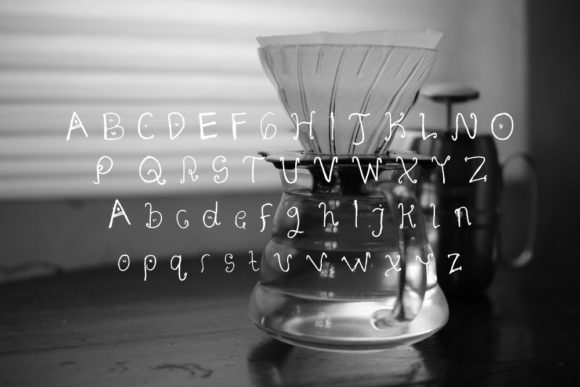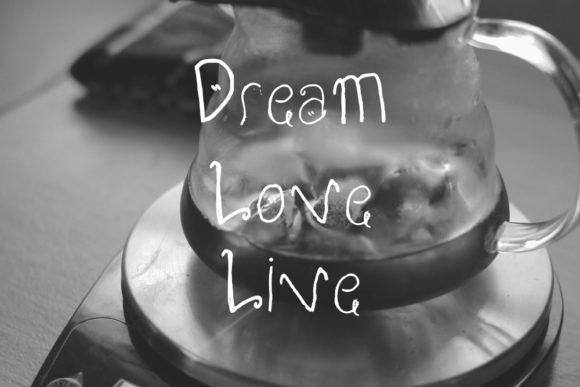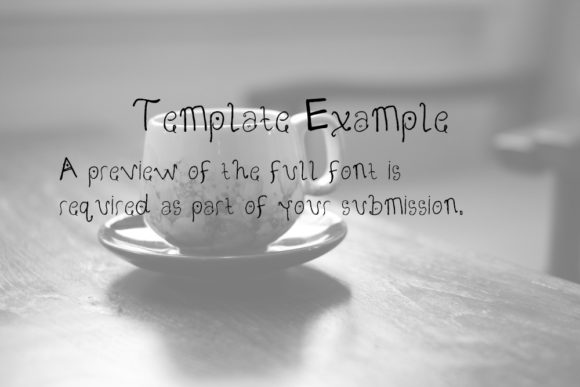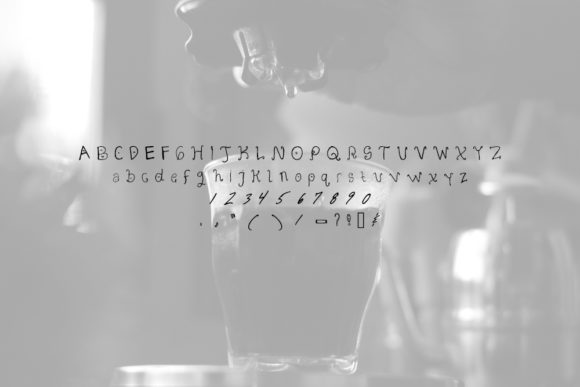
The Quest for the Perfect Font: Discovering Ayuwije Aestethic
Have you ever been in the middle of a design project, and suddenly, you’re stuck on finding the perfect font? I certainly have. It was a typical Wednesday morning when I received a message from a client asking for a logo design with a “quirky yet clean” vibe. As I began to brainstorm, I realized that finding the right font was crucial to bringing the entire design together. That’s when I stumbled upon Ayuwije Aestethic, a casual display font that has since become my go-to for various creative projects.
Ayuwije Aestethic: The Perfect Blend of Quirky and Clean
Ayuwije Aestethic is a display font created using a brush pen, giving it a unique, handcrafted feel. **Clean and a little bit quirky**, this font is perfect for logos, branding, social media, and crafty DIY projects. Its versatility and charm make it an excellent addition to any designer’s toolkit.
- ✨ Unique, handcrafted feel that adds a personal touch to designs
- ✅ Clean and legible, making it perfect for display text
- 💡 Quirky and playful, adding a touch of whimsy to designs
- 🎨 Highly versatile, suitable for various design projects
- 🤔 May not be the best fit for body text or long paragraphs
- ⚠️ Limited availability of certain characters or glyphs
- Experiment with OpenType features, such as stylistic alternates, to add more personality to your text
The Designer Inspiration Behind Ayuwije Aestethic
Ayuwije Aestethic was created with the intention of capturing the essence of handcrafted design. The font’s creator drew inspiration from traditional brush pen calligraphy, infusing it with a modern twist. The result is a font that feels both personal and polished.
Q: What type of projects is Ayuwije Aestethic best suited for?
A: Ayuwije Aestethic is perfect for logos, branding, social media graphics, and crafty DIY projects.
Q: Can I use Ayuwije Aestethic for body text or long paragraphs?
A: While Ayuwije Aestethic is a beautiful font, it’s best suited for display text. For body text or long paragraphs, consider using a more traditional font.
Q: Does Ayuwije Aestethic support OpenType features?
A: Yes, Ayuwije Aestethic supports OpenType features, including stylistic alternates and glyphs.